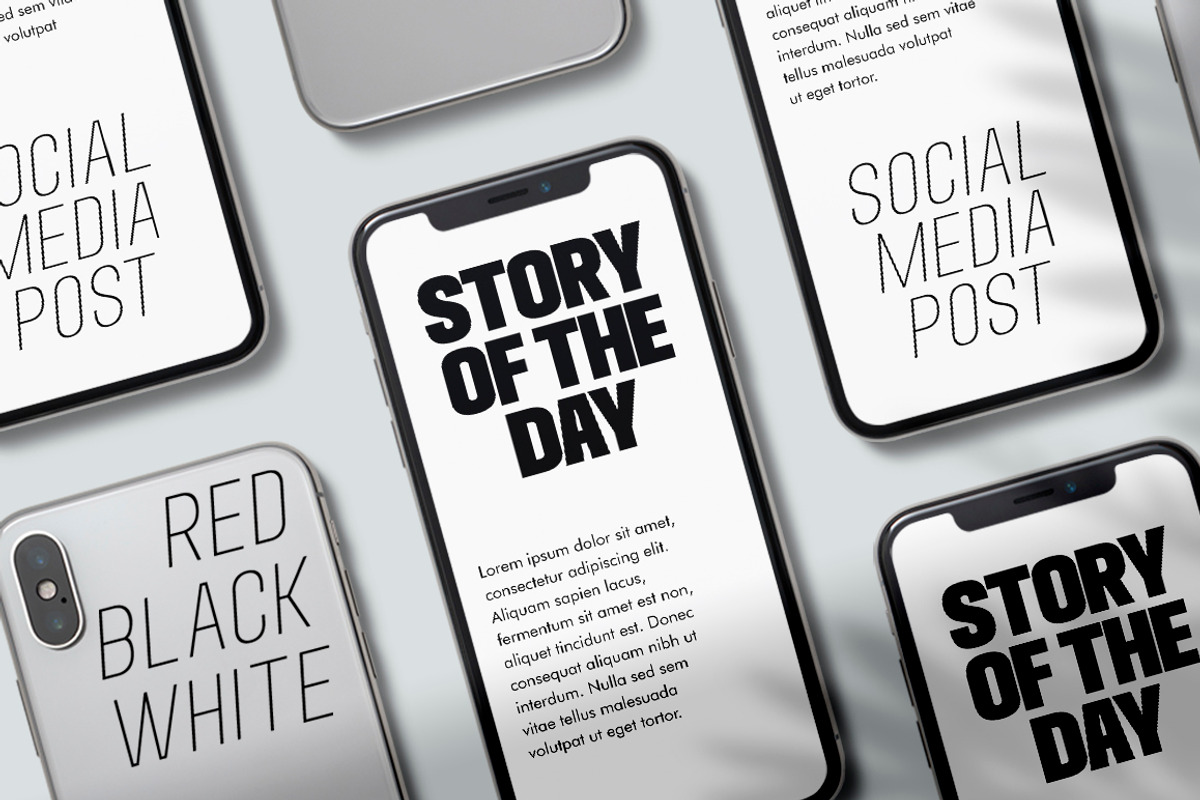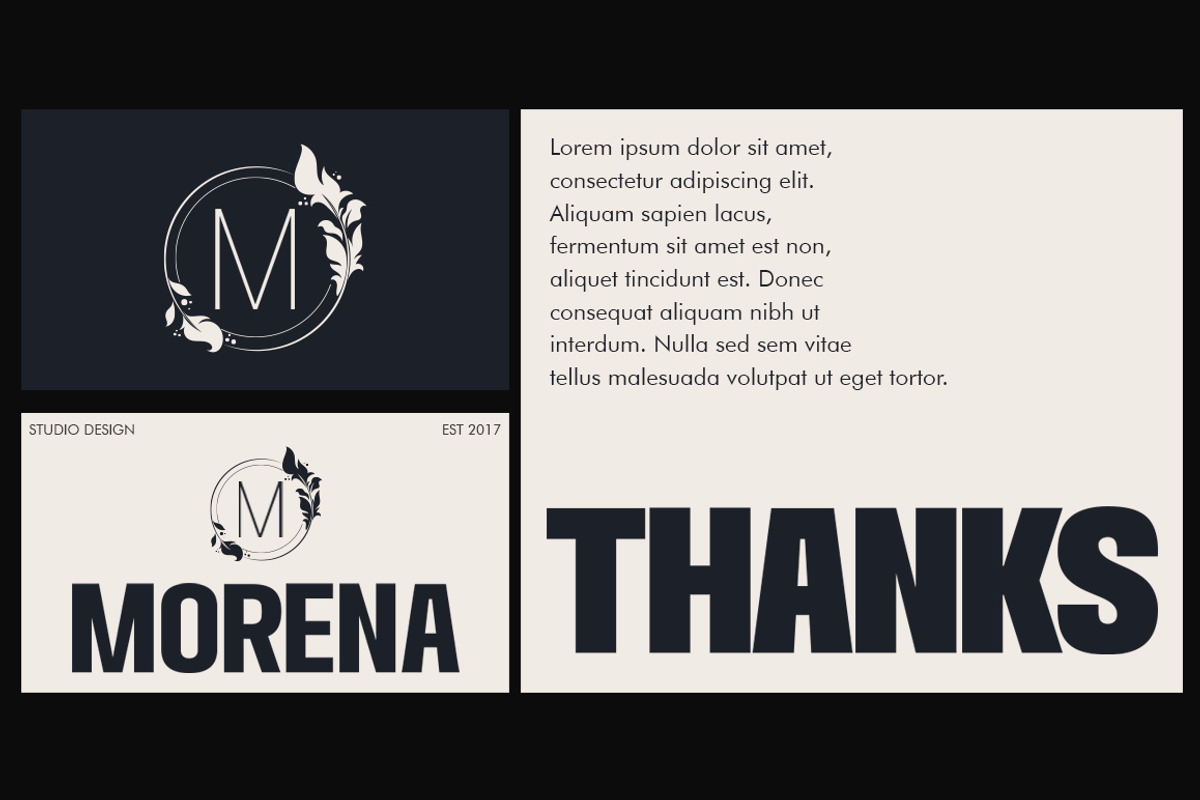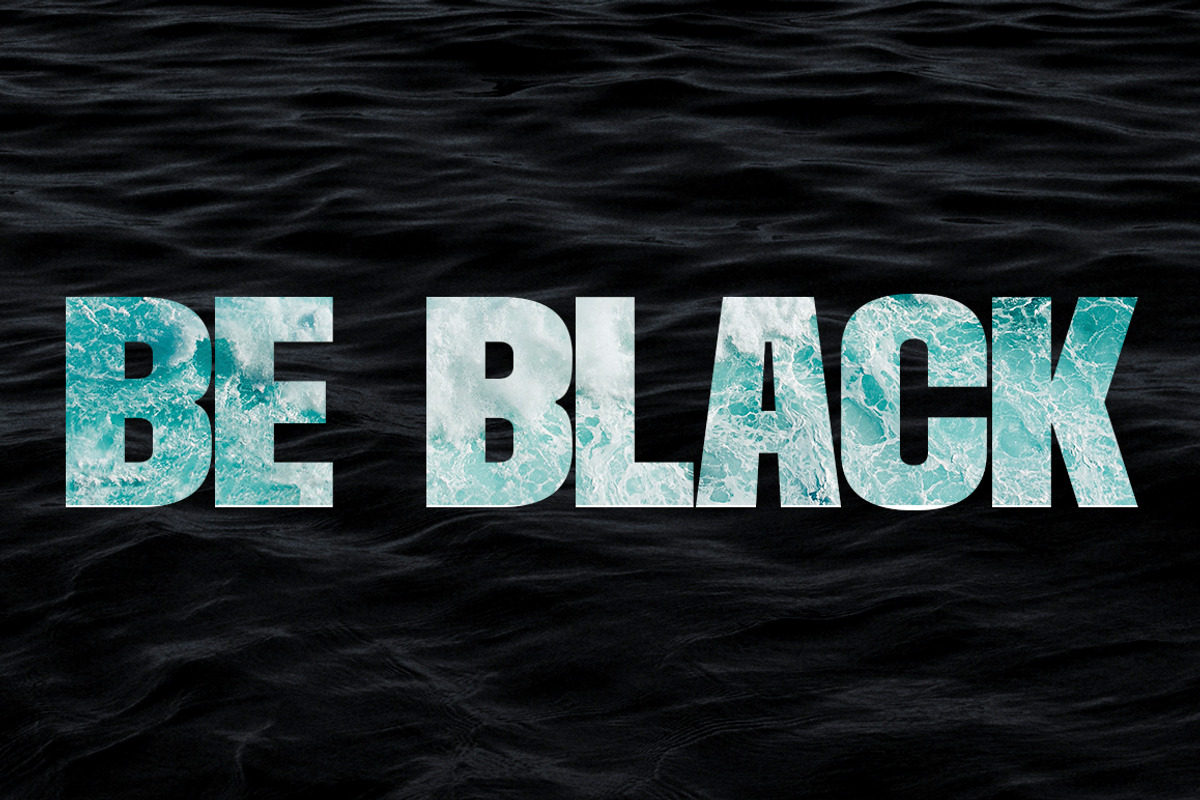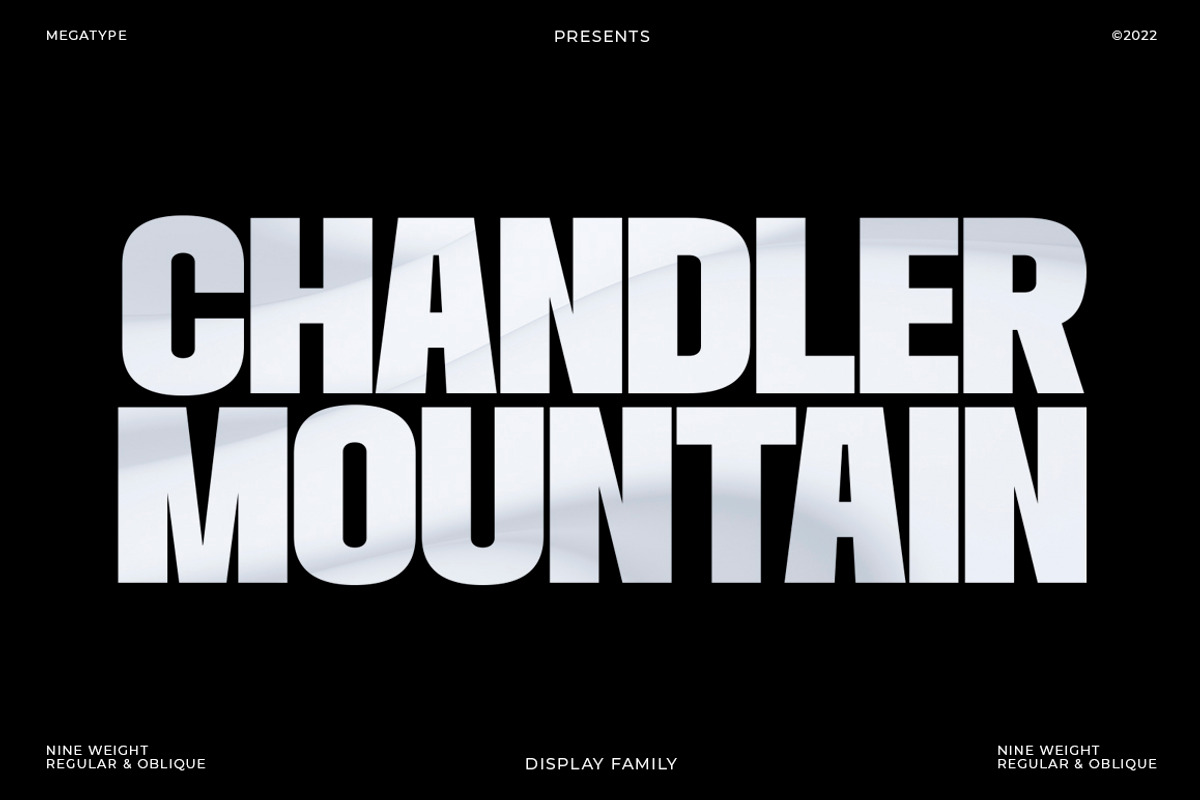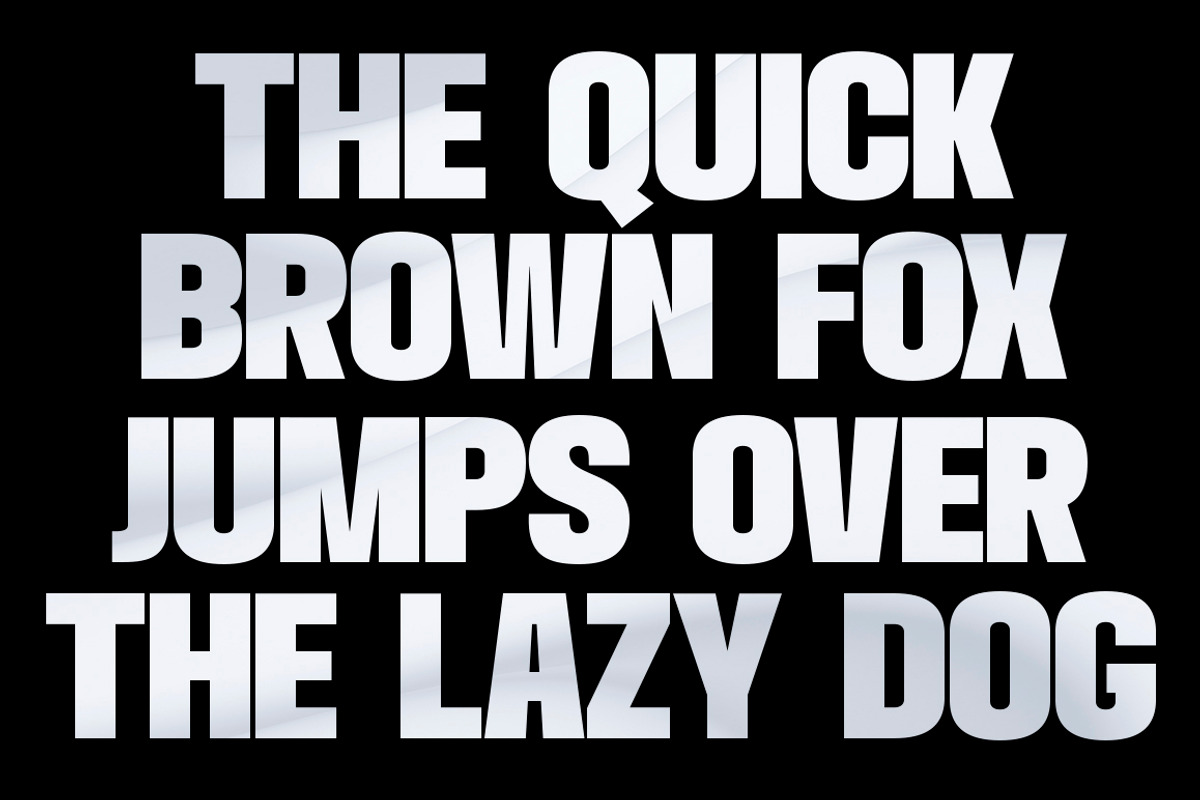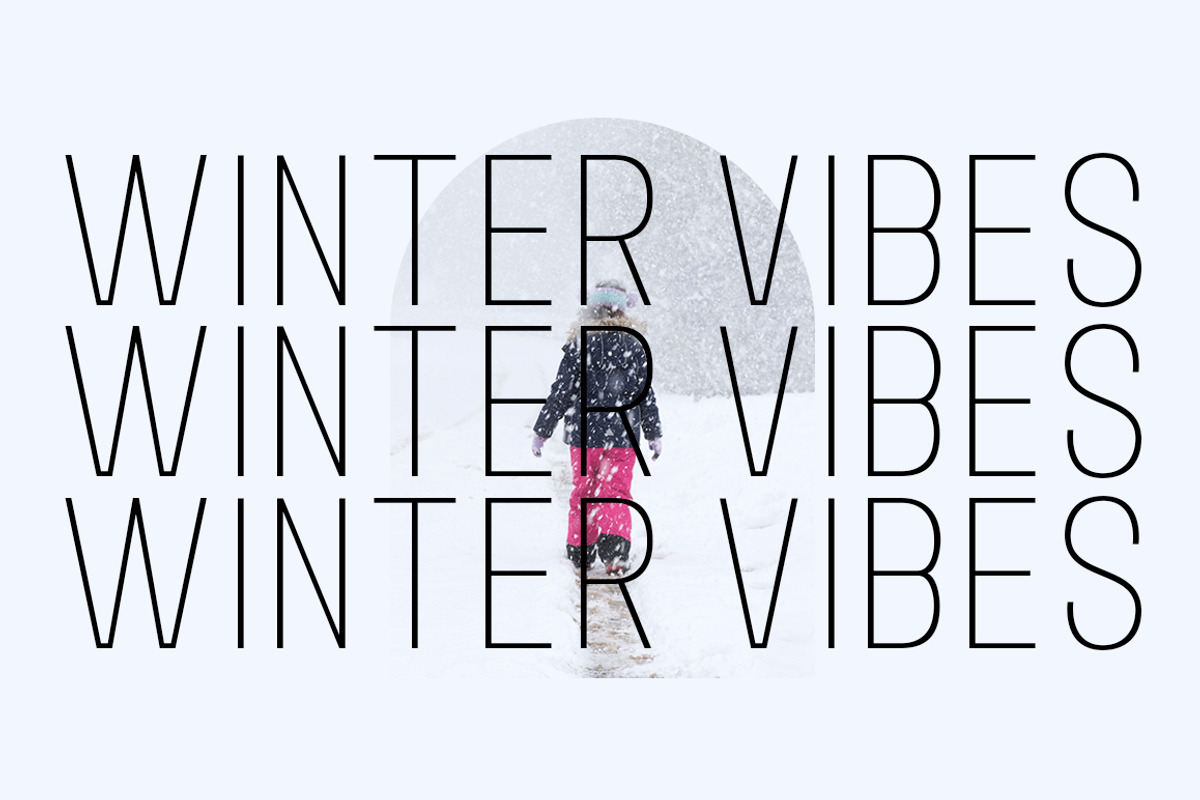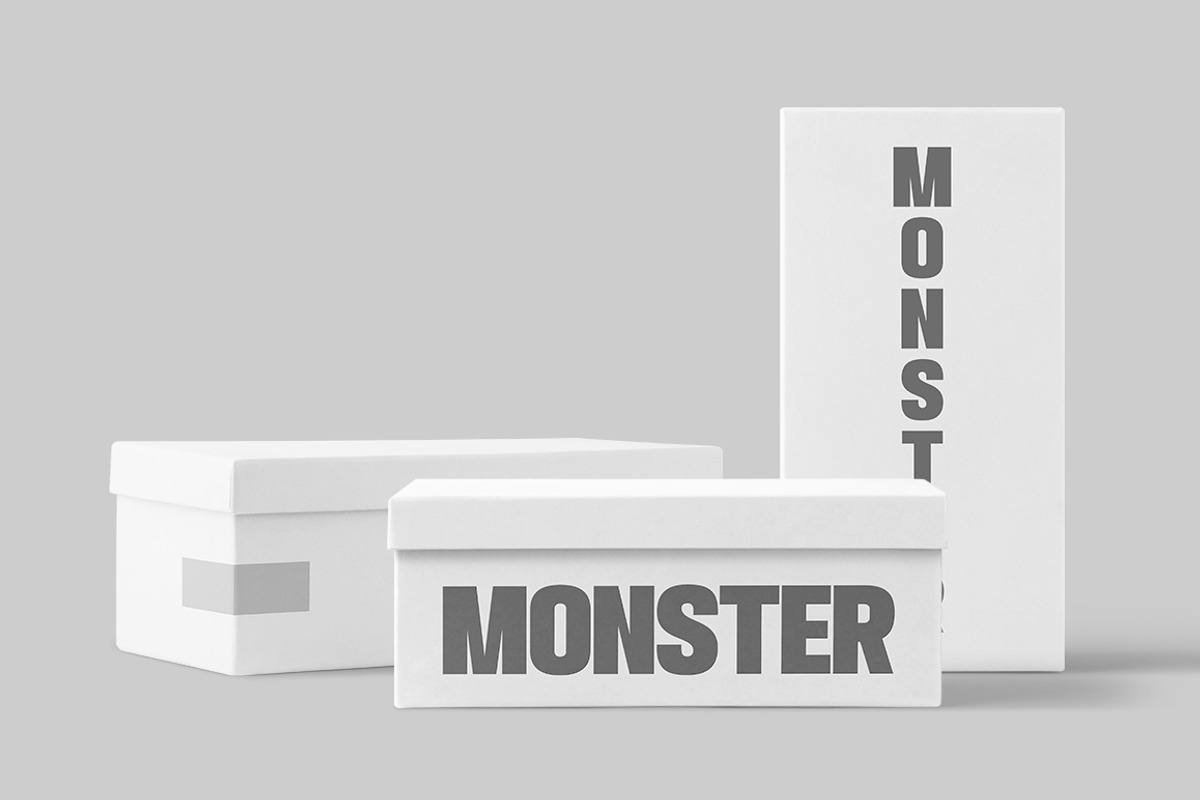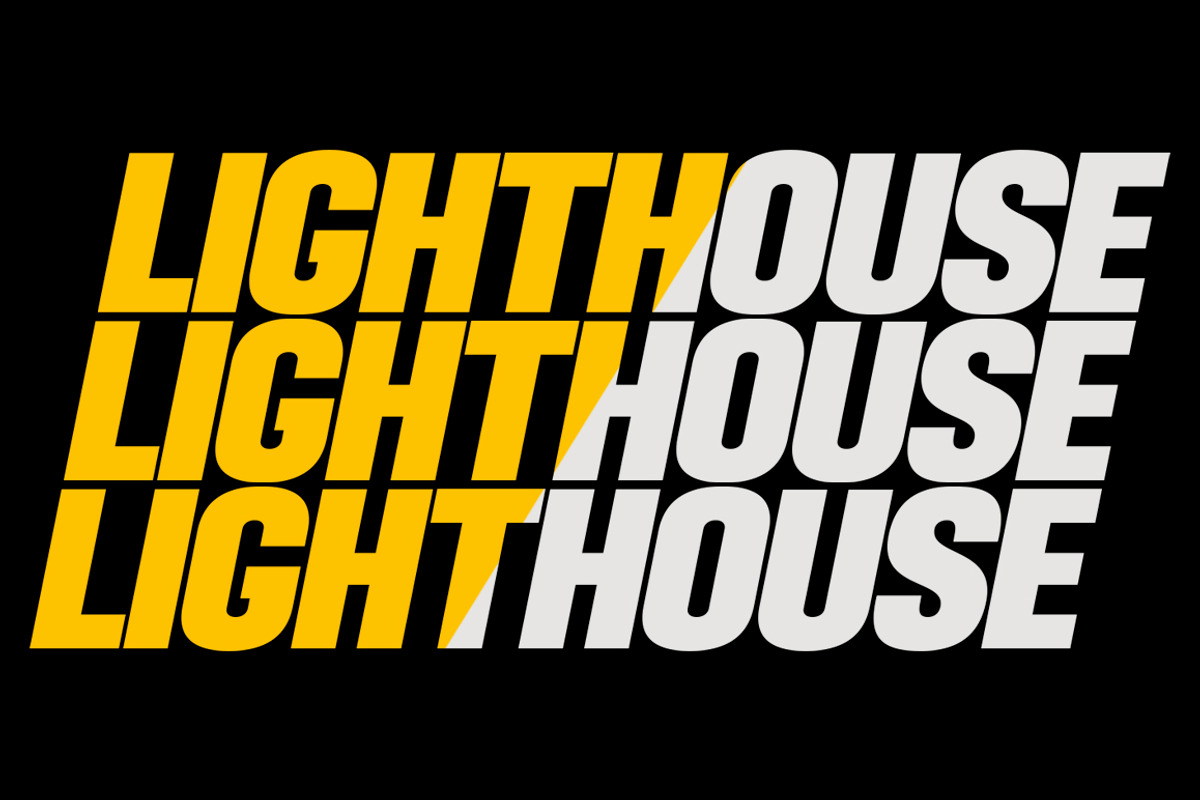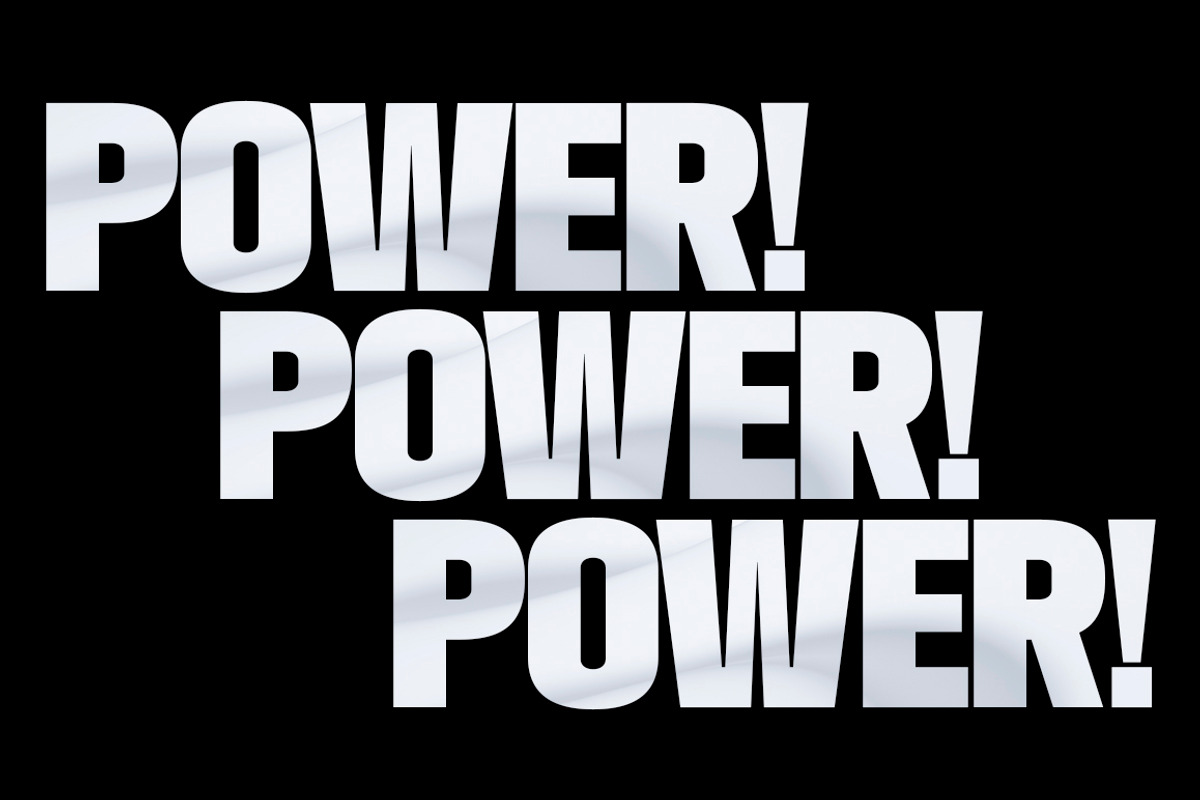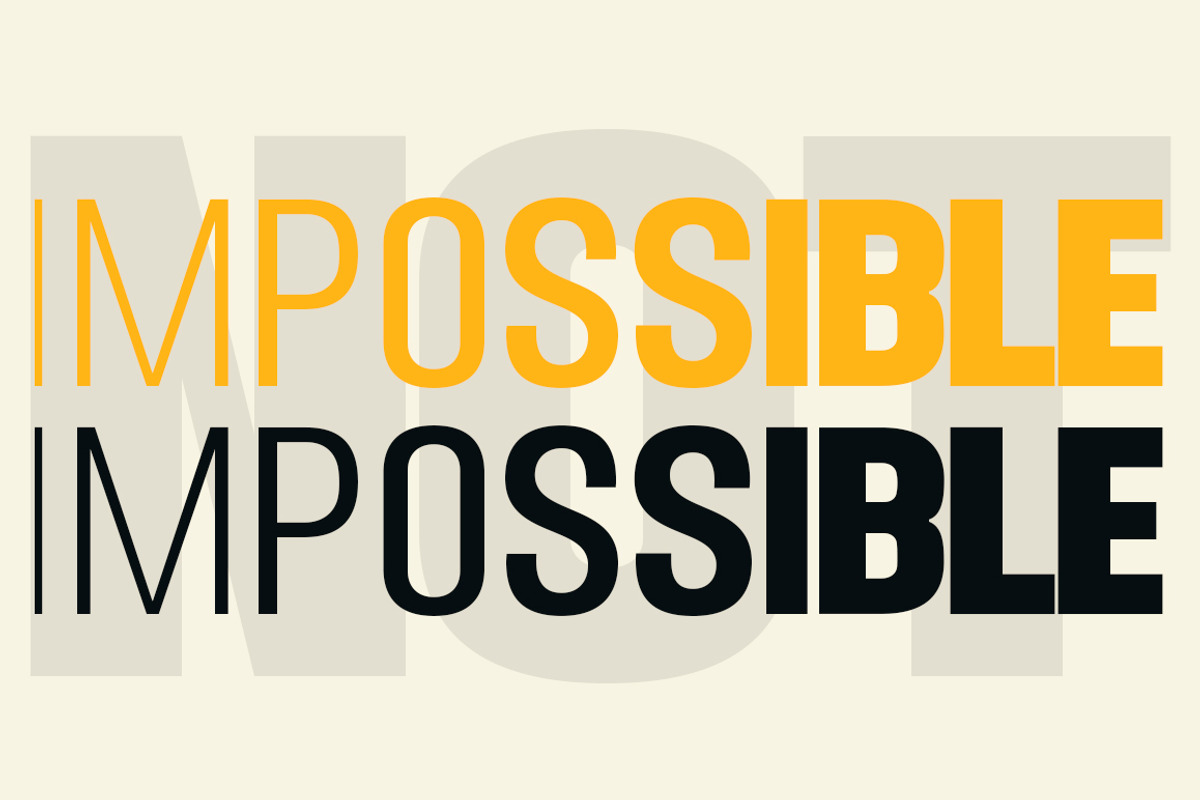
Chandler Mountain
INTRODUCING: CHANDLER MOUNTAIN DISPLAY FAMILY FONTS
Chandler Mountain is a display font family that is simple but strong, defined by sharp edges with a modern touch. It is designed to exude a sense of strength and toughness as well as optimal readability.
Chandler Mountain consists of 9 weights from Regular and Slanted:
-Chandler Mountain Black
-Chandler Mountain Extra Bold
-Chandler Mountain Bold
-Chandler Mountain Semi Bold
-Chandler Mountain Medium
-Chandler Mountain Regular
-Chandler Mountain Light
-Chandler Mountain Extra Light
-Chandler Mountain Thin
Chandler Mountain works well in branding, logos, headlines, high fashion, Magazines, Quotes and Posters. The different weights give you full range to explore a whole host of apps, from Television Shows, Youtube Podcasts, tech startups, local events to sporting events.